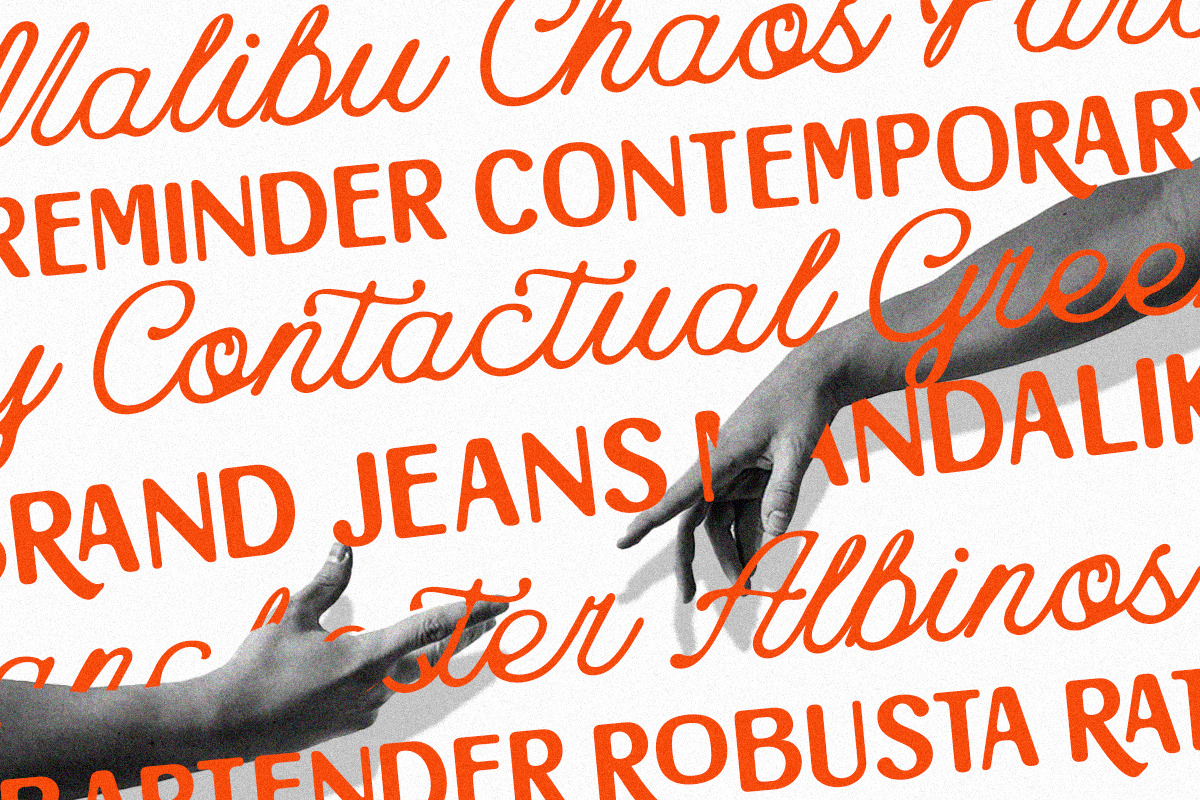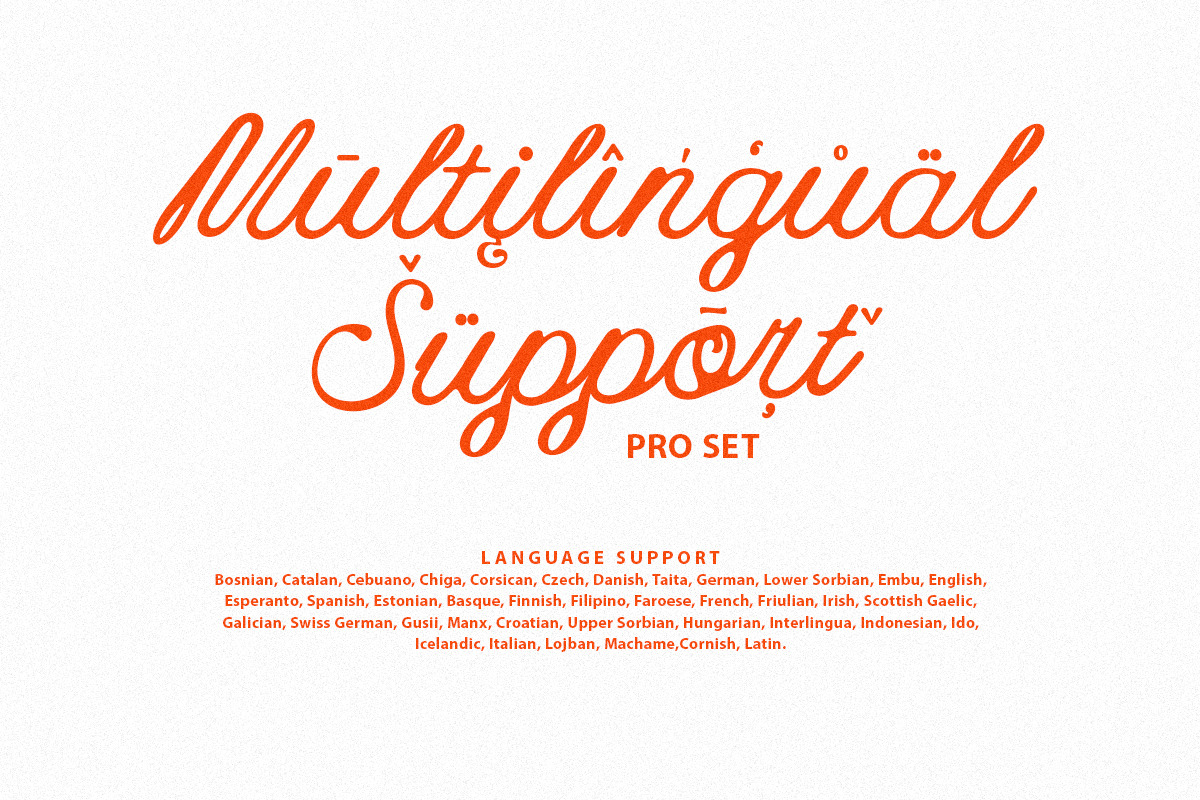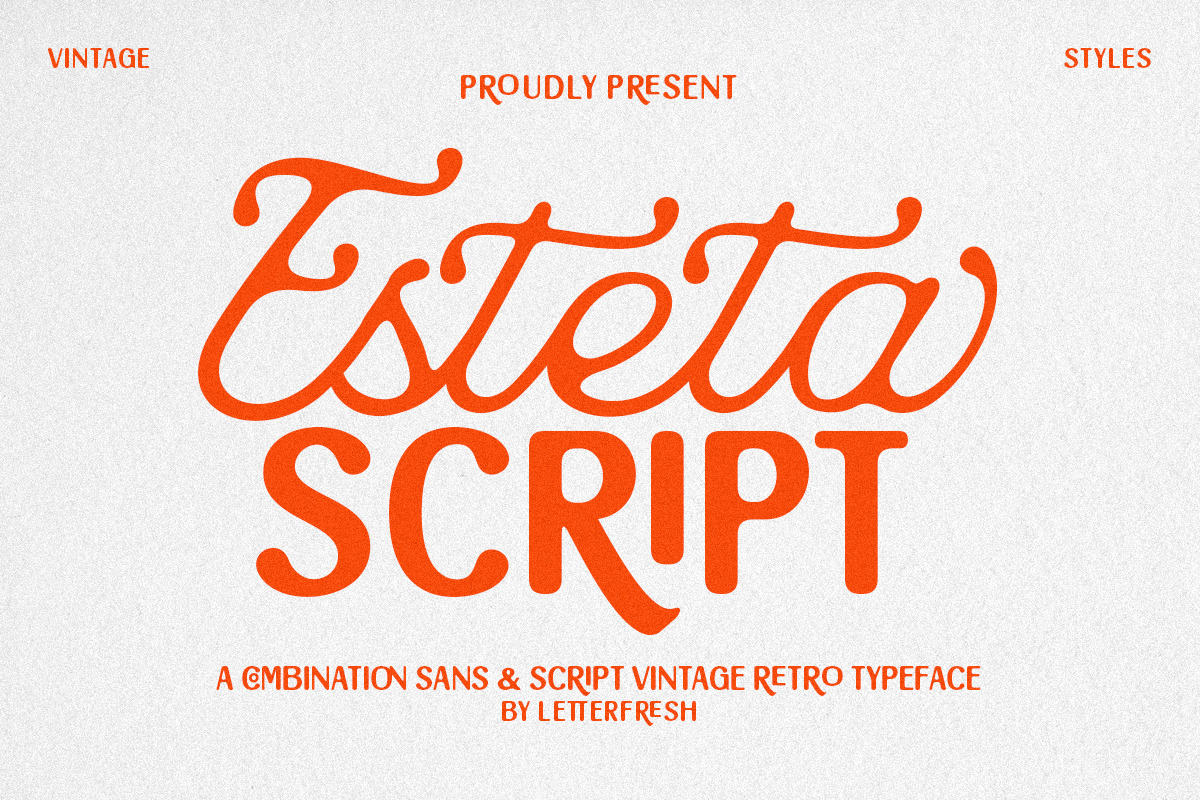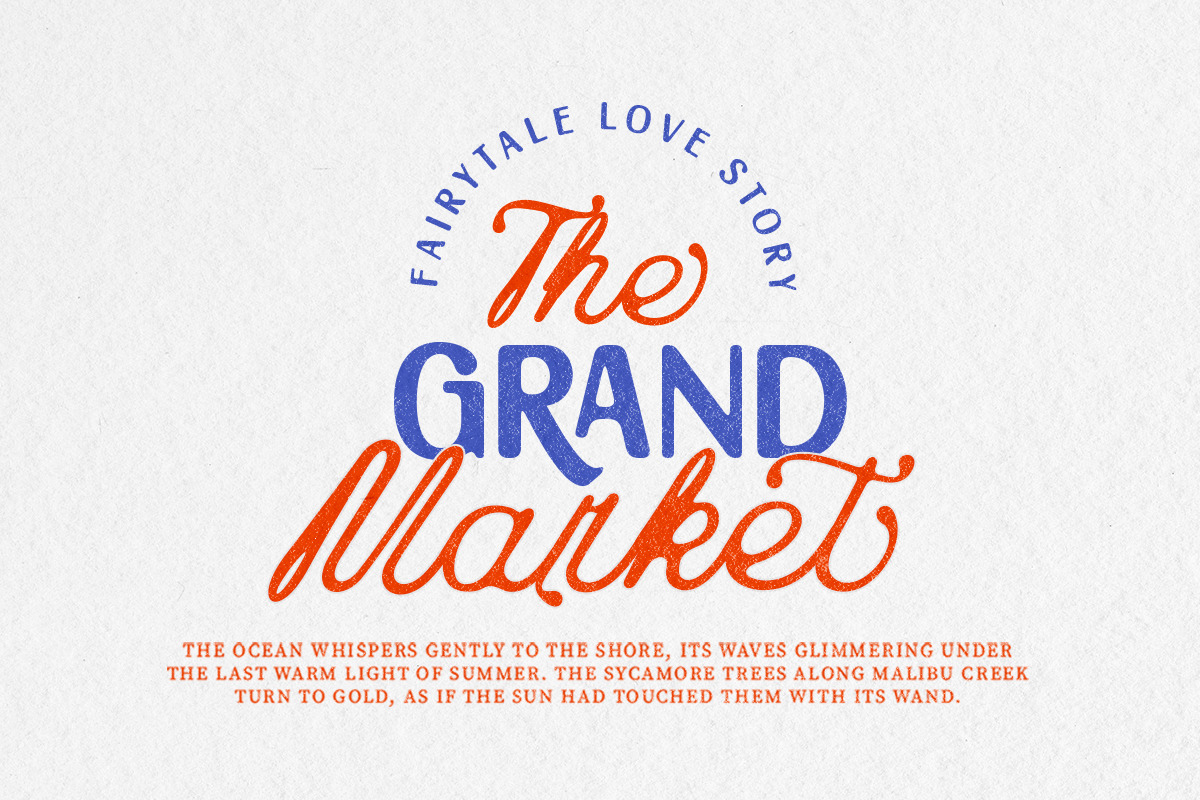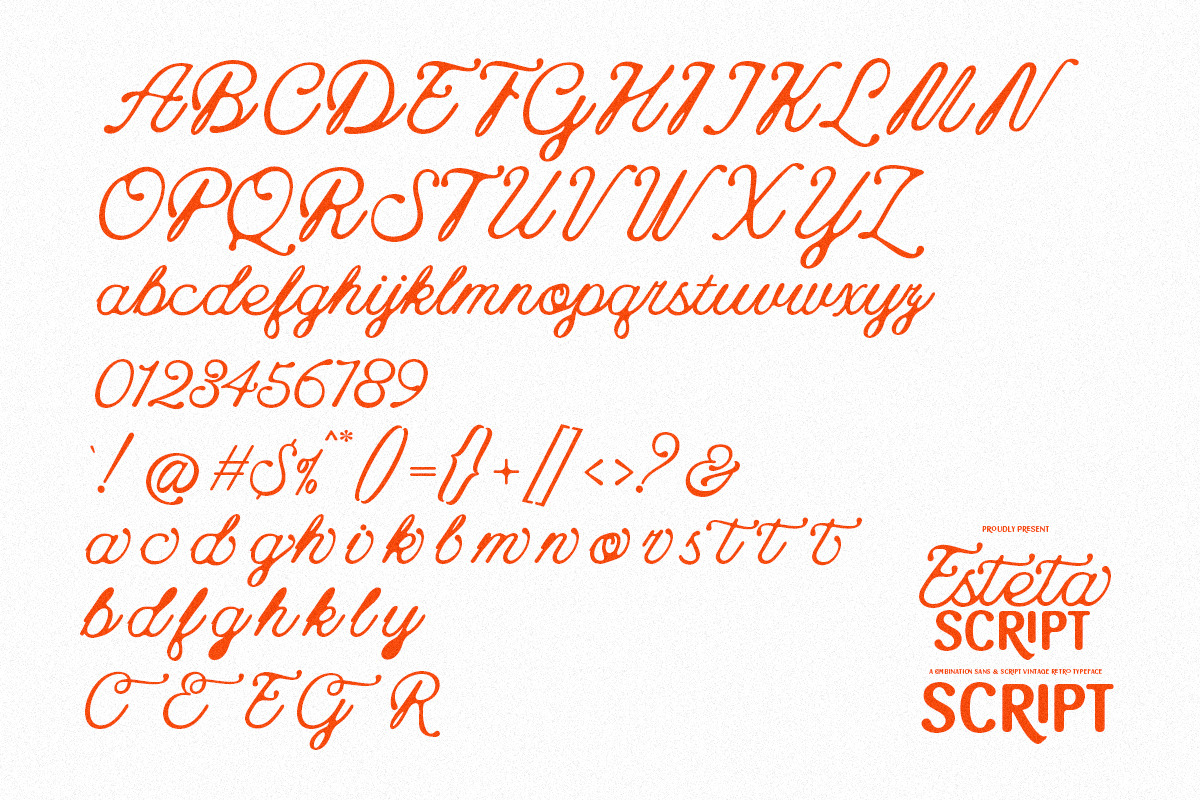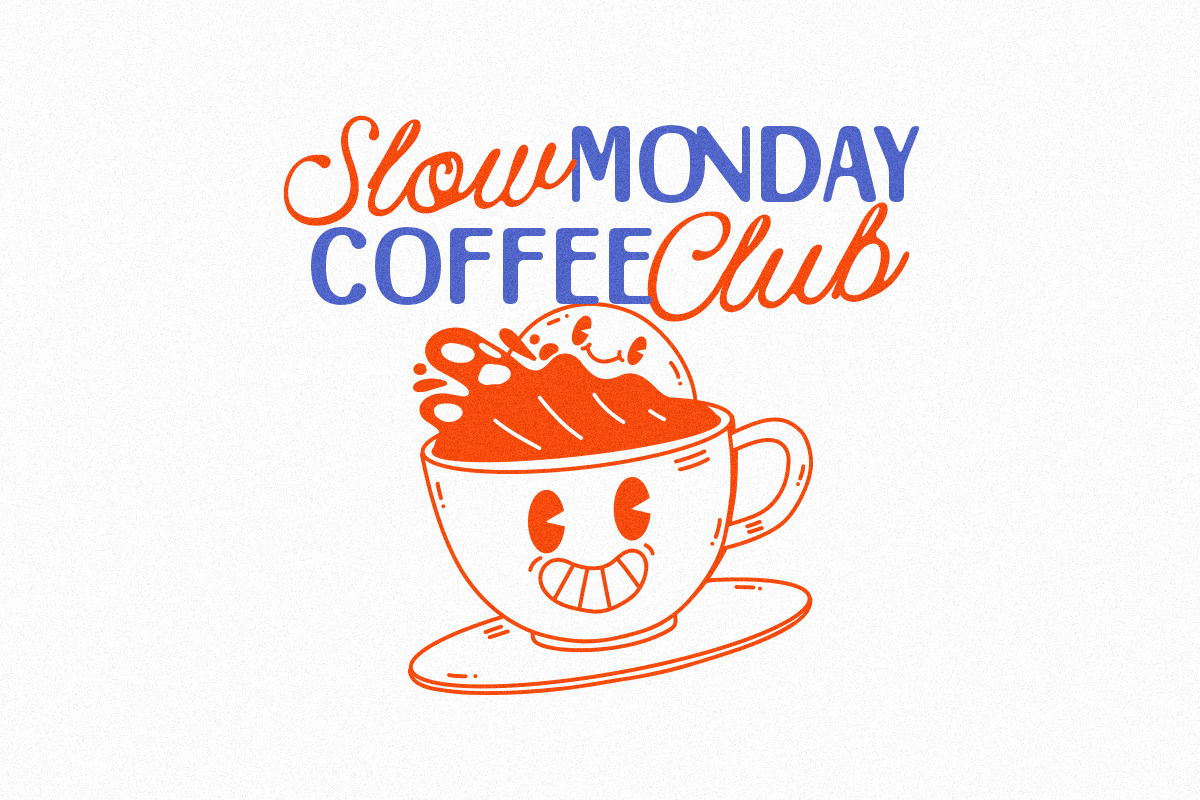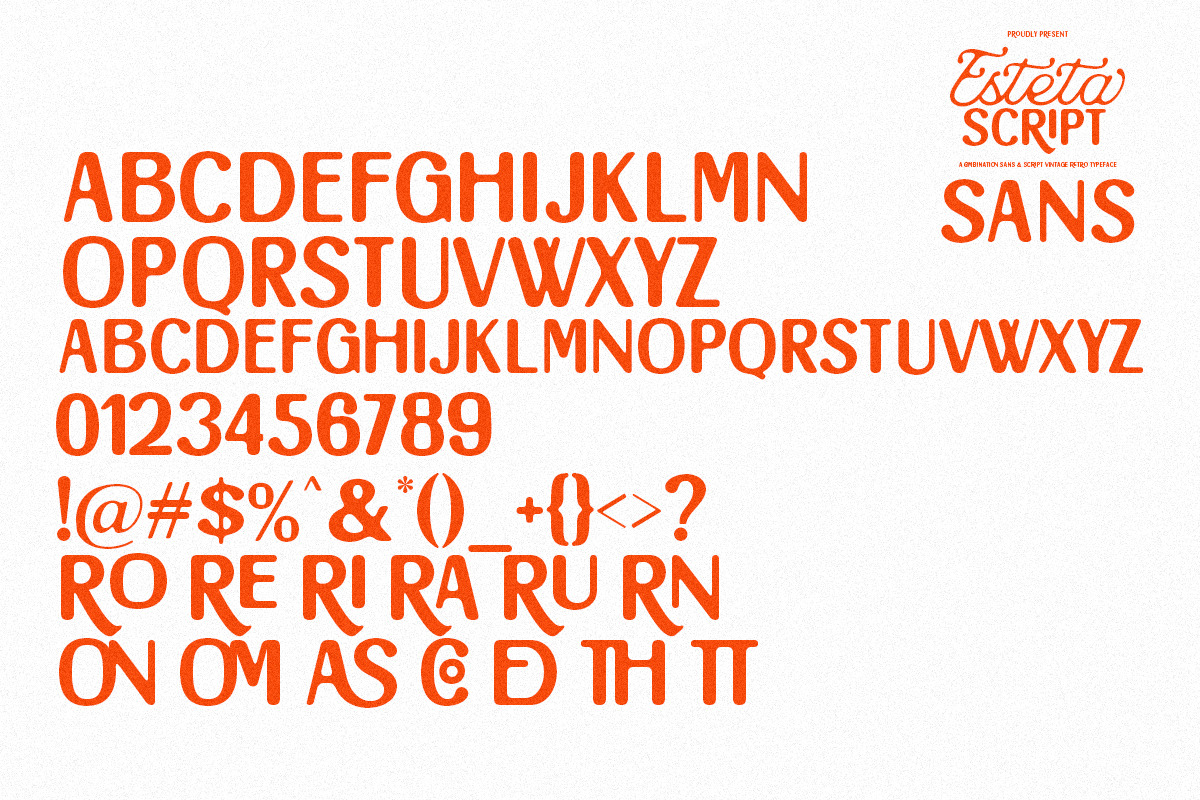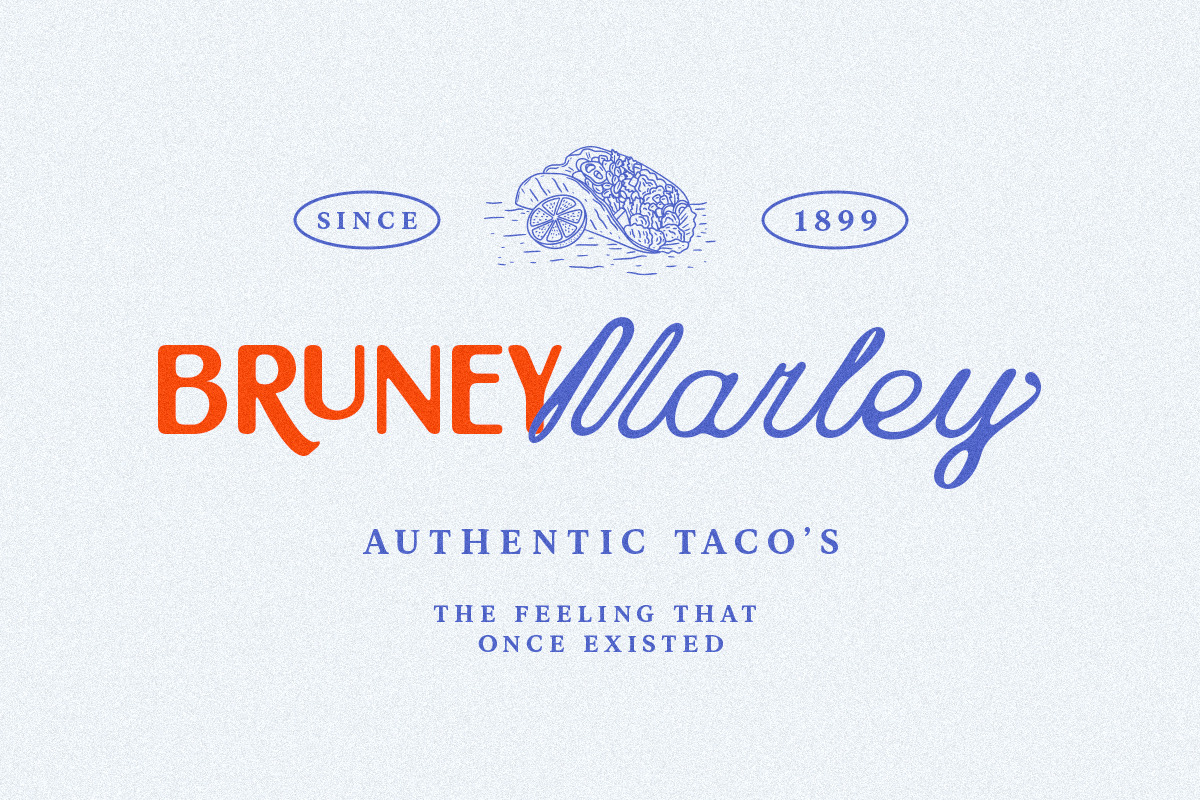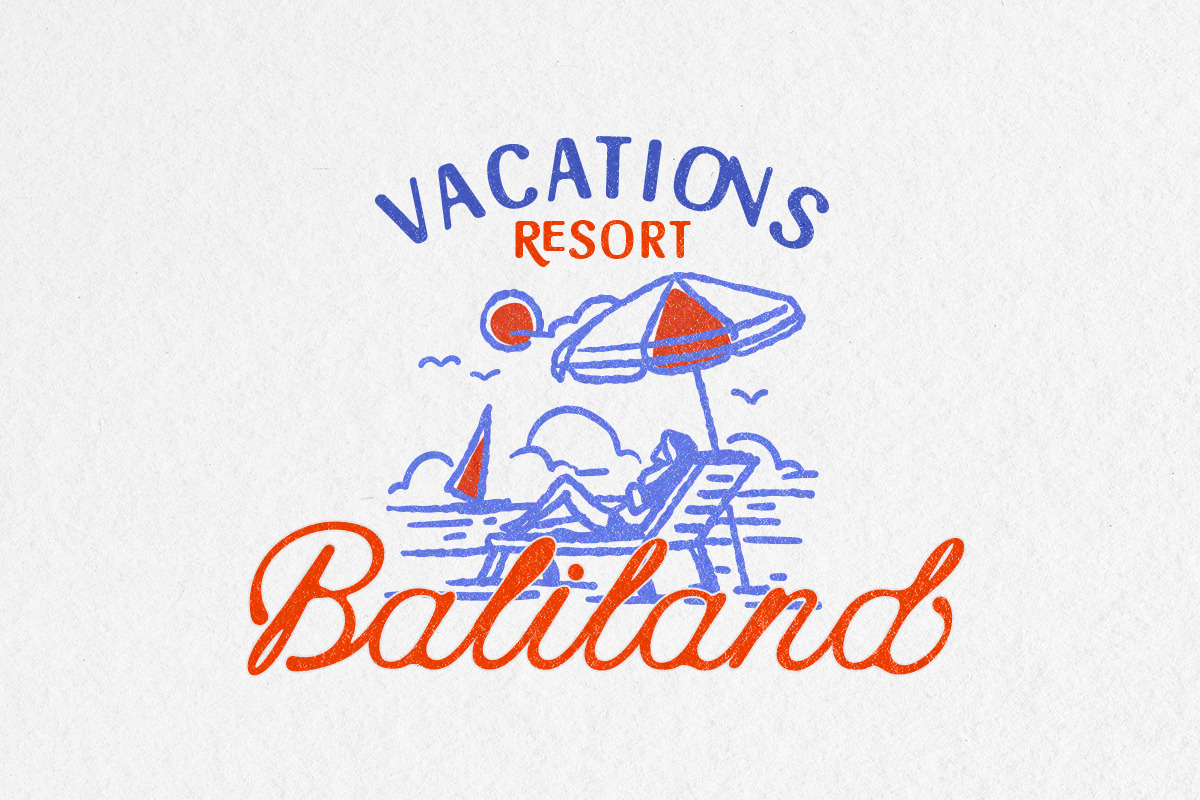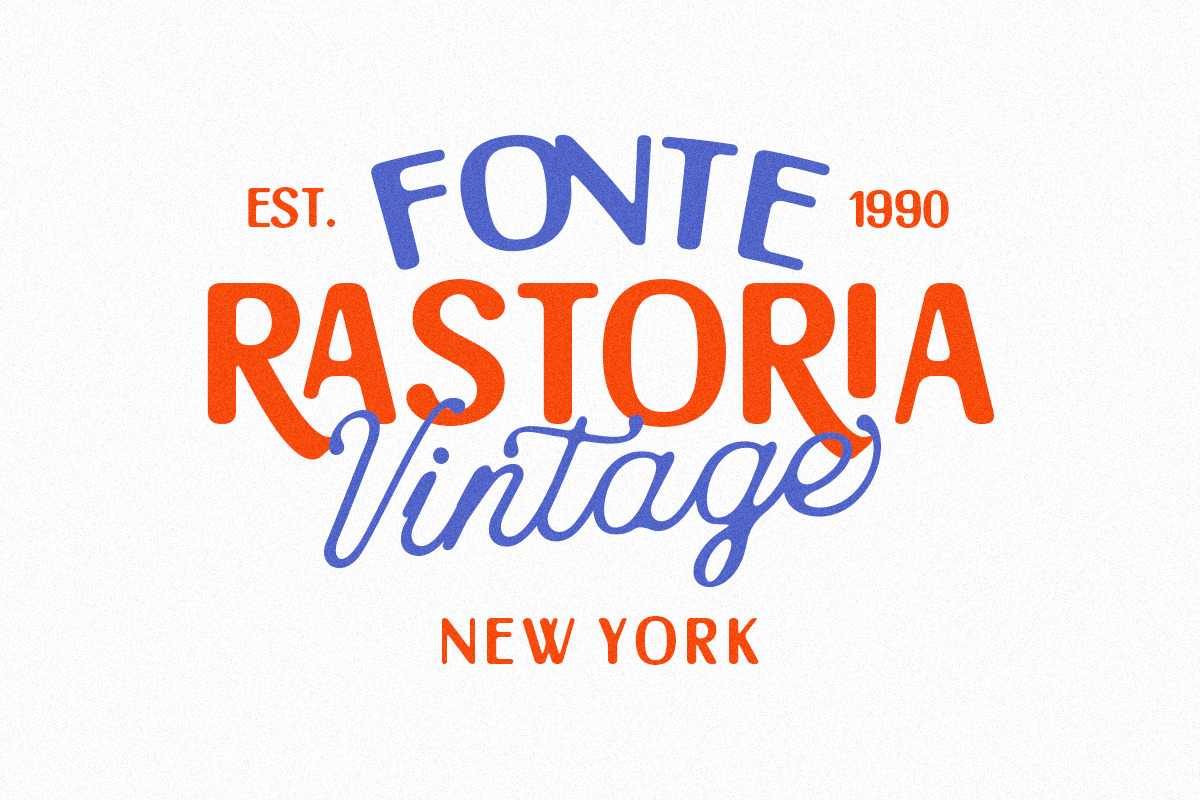
Esteta Script - Font Duo
Introducing Esteta Script, a captivating font duo that strikes a perfect balance between classic elegance and modern simplicity. This unique combination consists of two complementary typefaces:
Script Font: A classic, smooth, flowing handwriting style, perfect for creating an elegant, warm, and personal feel. Ideal for branding, wedding invitations, quotes, and feminine designs.
Sans Font: A capital letter style with a classic, minimalist look. Its clean, versatile design makes it perfect for headlines, logos, and typographic elements that require clarity.
Esteta Script is designed to provide flexibility in a variety of design projects. Use the combination to create eye-catching visual contrasts.